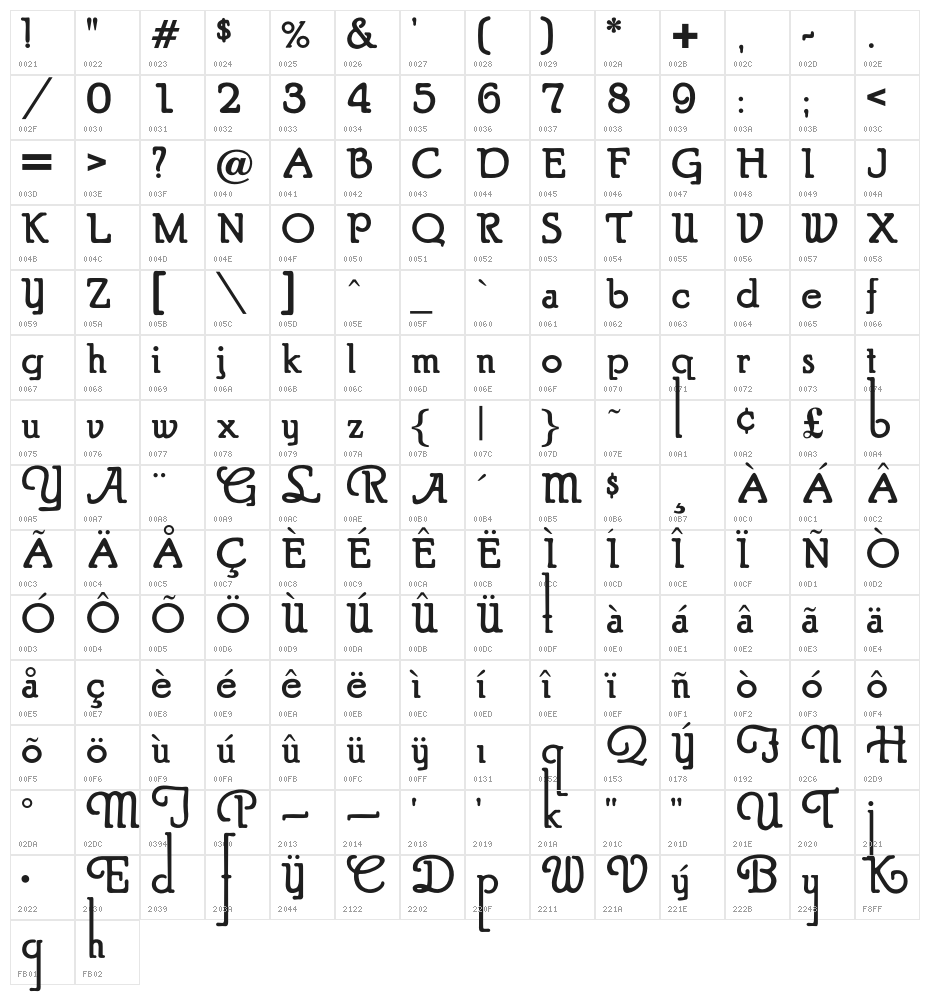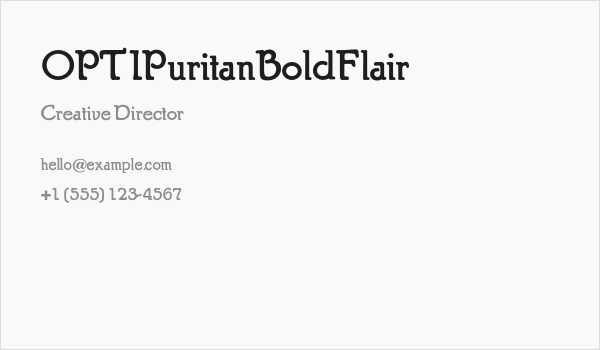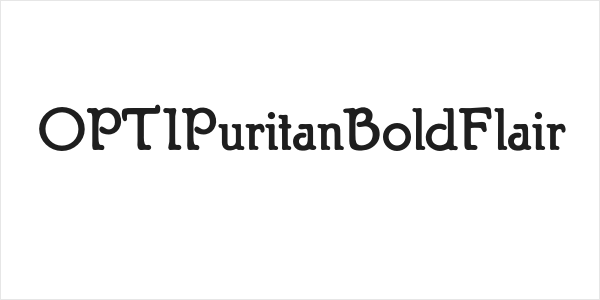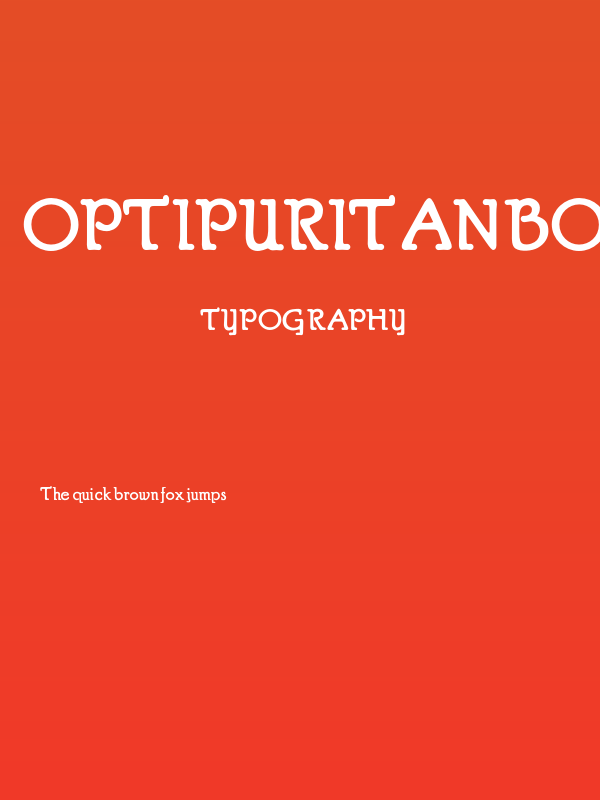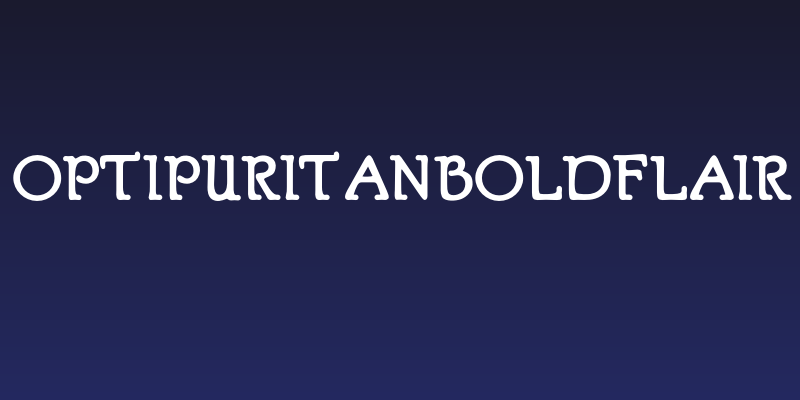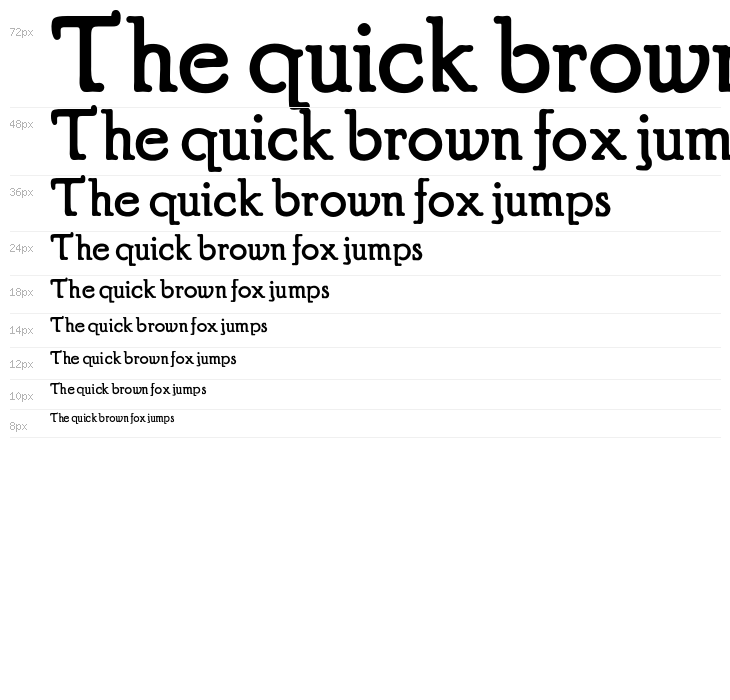
OPTIPuritanBoldFlair Font
OPTIPuritanBoldFlair Description
This font features a bold and distinctive style with a flair that combines traditional serif elements with a modern twist. The characters are well-defined, with a slight curvature that adds a touch of elegance and sophistication. The uppercase letters are strong and commanding, while the lowercase letters maintain a consistent flow, making it versatile for various design needs. The numerals are clear and easily readable, and the special characters are uniquely styled to complement the overall aesthetic. This font is ideal for making a statement in any project.